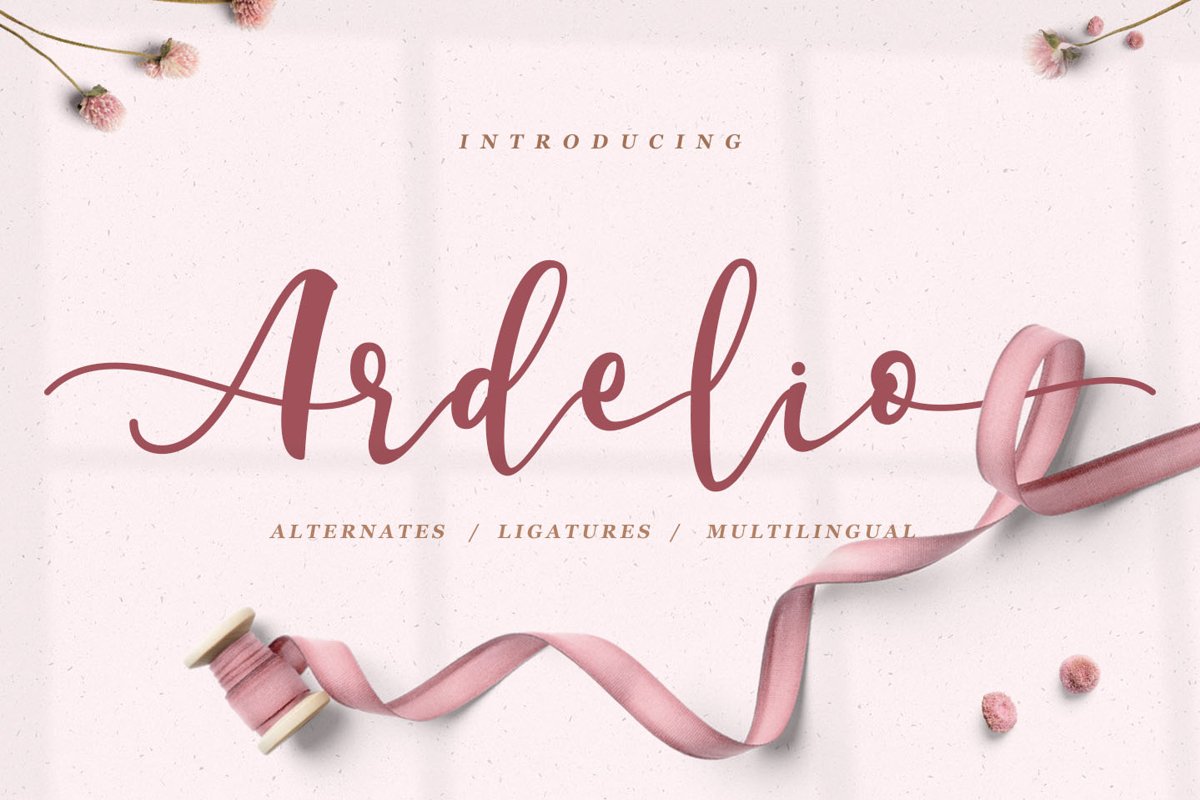
Modern Script - Ardelio Font
Ardelio
An elegant calligraphy script font. Perfect for making elegant stylish statements - or adding a touch of class to your designs. This script has a multitude of natural looking ligatures in its OpenType features - making the font look as close to natural handwriting as possible.
Ardelio is perfect for many different projects such as logos & branding, invitation, stationery, wedding designs, social media posts, advertisements, product packaging, product designs, label, photography, watermark, special events or anything.
• Ardelio includes capital and lowercase letters, alternates, and Ligatures
• Numbers + punctuation
• Foreign language support